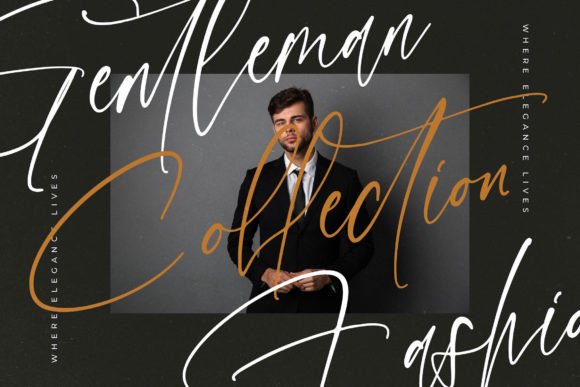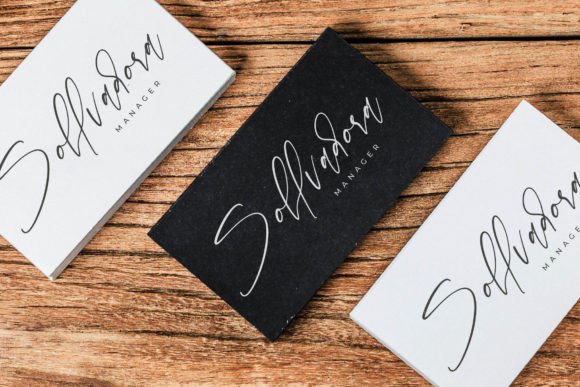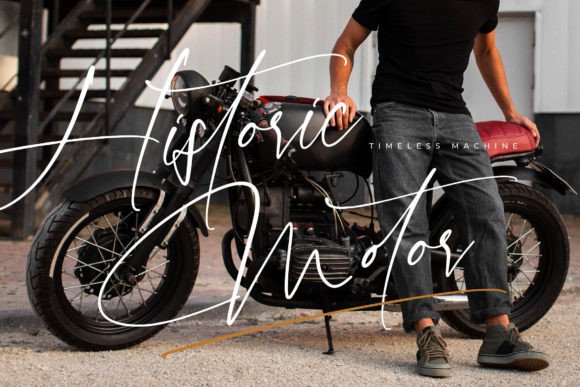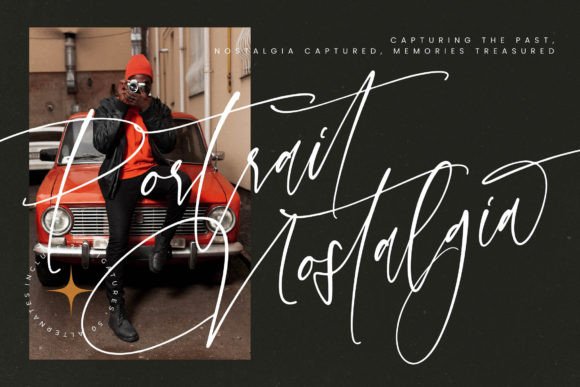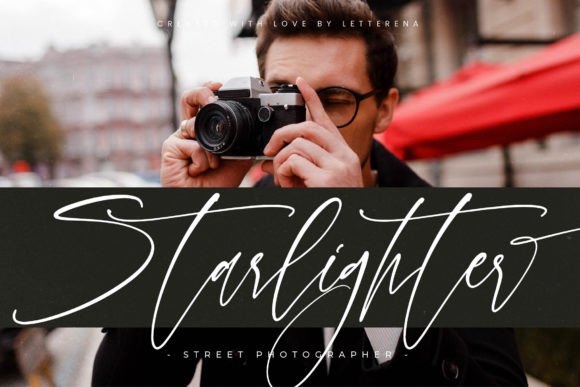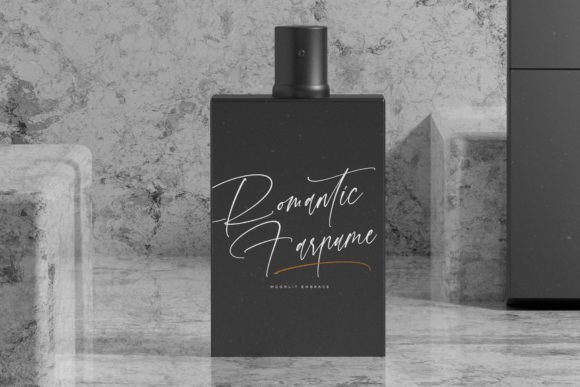
Introduction to Roberthone Signatera Font
Roberthone Signatera – Modern Signature Script , from Letterena, is a Luxury Script font, suitable for any projects such as: logos, branding projects, homeware designs, product packaging, mugs, quotes, posters, shopping bags, t-shirts, book covers, name card, invitation cards, greeting cards, label, photography, watermark, special events, and all your other luxury and beautiful projects that need a Luxury Script taste.
Roberthone Signatera – Modern Signature Script , from Letterena, is a Luxury Script font, suitable for any projects such as: logos, branding projects, homeware designs, product packaging, mugs, quotes
Key Features of Roberthone Signatera Font
Why Choose Roberthone Signatera Font?
Roberthone Signatera Font offers exceptional quality and versatility, making it a valuable addition to your design toolkit. Whether you’re creating for personal projects or commercial use, Roberthone Signatera Font delivers professional results.